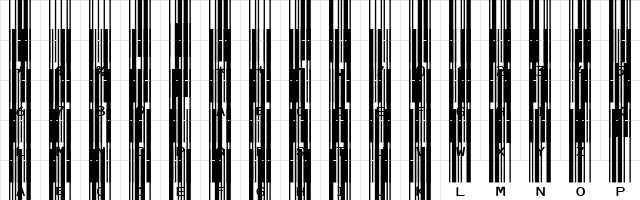
IDAHC39M Code 39 Barcode Regular
| Foundry | IDAutomation.com |
| Designer | IDAutomation.com, Inc. |
Design Context for IDAHC39M Code 39 Barcode Typeface
IDAHC39M Code 39 Barcode brings the precise, column-aligned rhythm of monospaced typography to designs that value technical clarity and systematic order.
Well-suited to data-driven dashboards, coding tutorials, and any design that wants to reference the world of programming.
Pro Tip: Use IDAHC39M Code 39 Barcode with slightly increased line-height for extended reading — fixed-width spacing can feel dense in longer passages without extra breathing room.